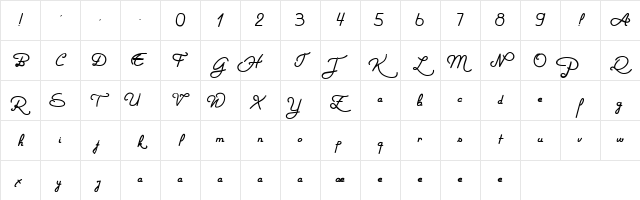
Not only the Quake Regular
Foundry: M.K.V
Designer: M.K.V
Design Context for Not only the Quake
Not only the Quake is a composed and adaptable typeface that performs quietly and consistently across a wide range of design contexts.